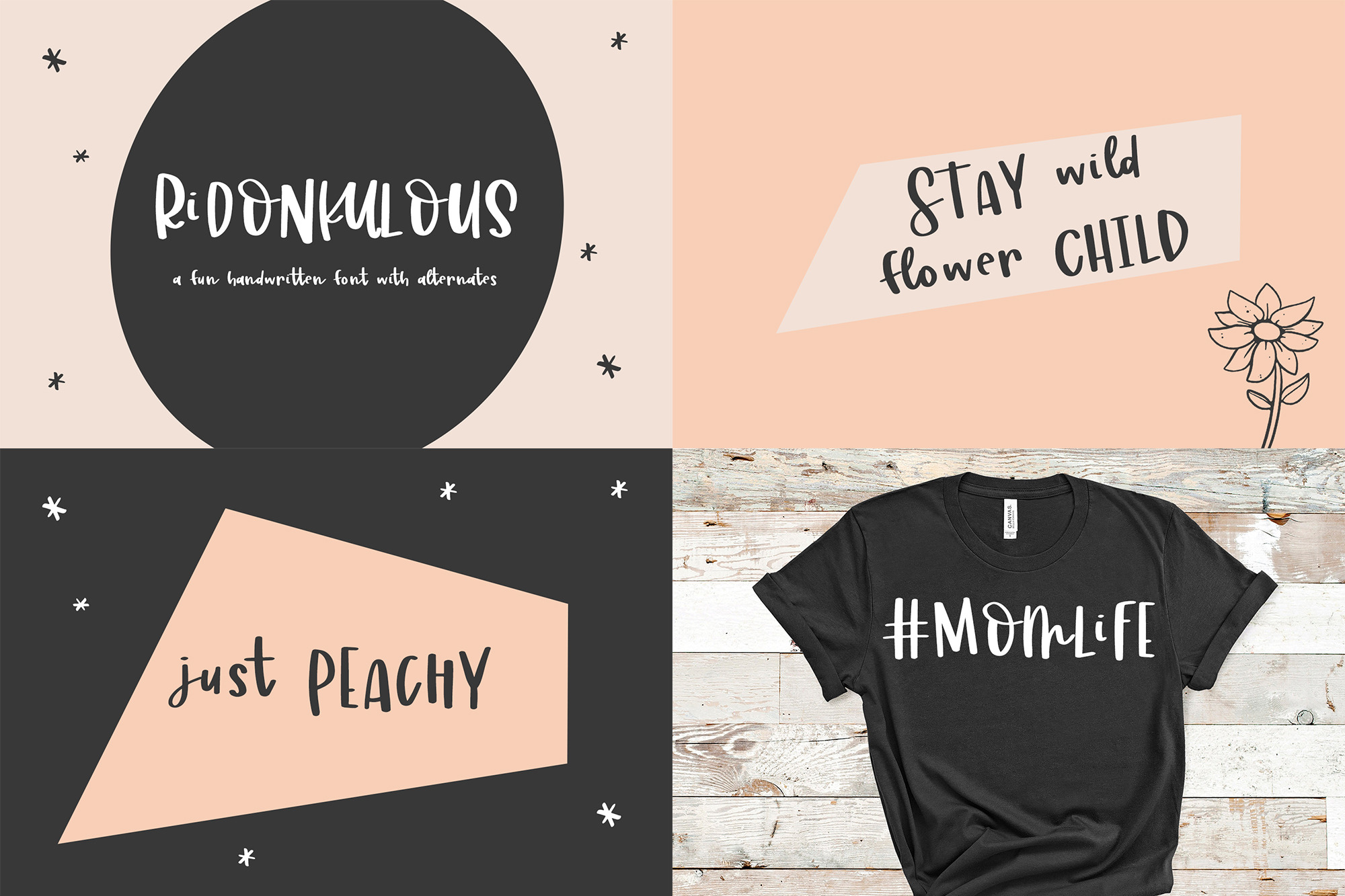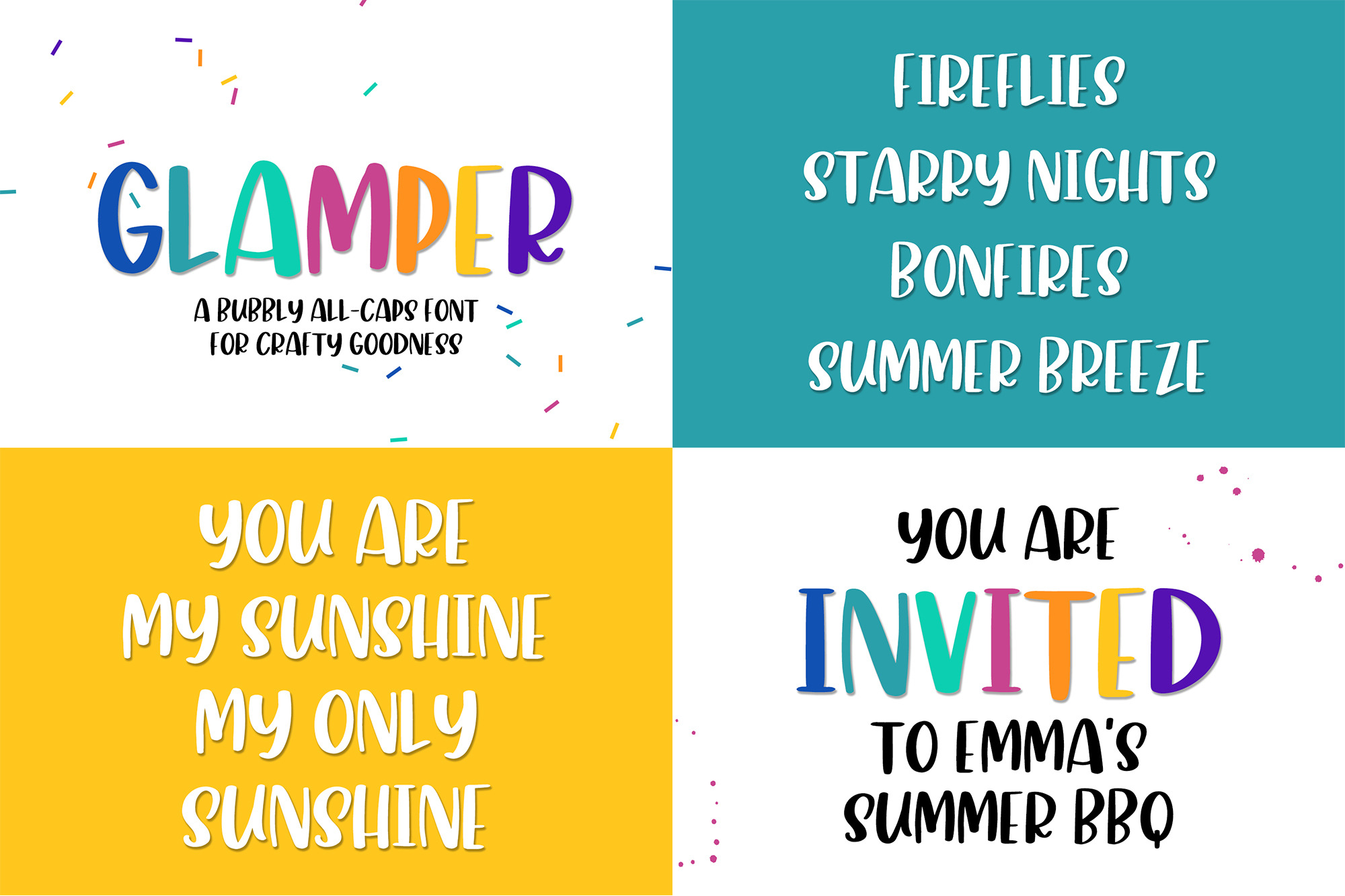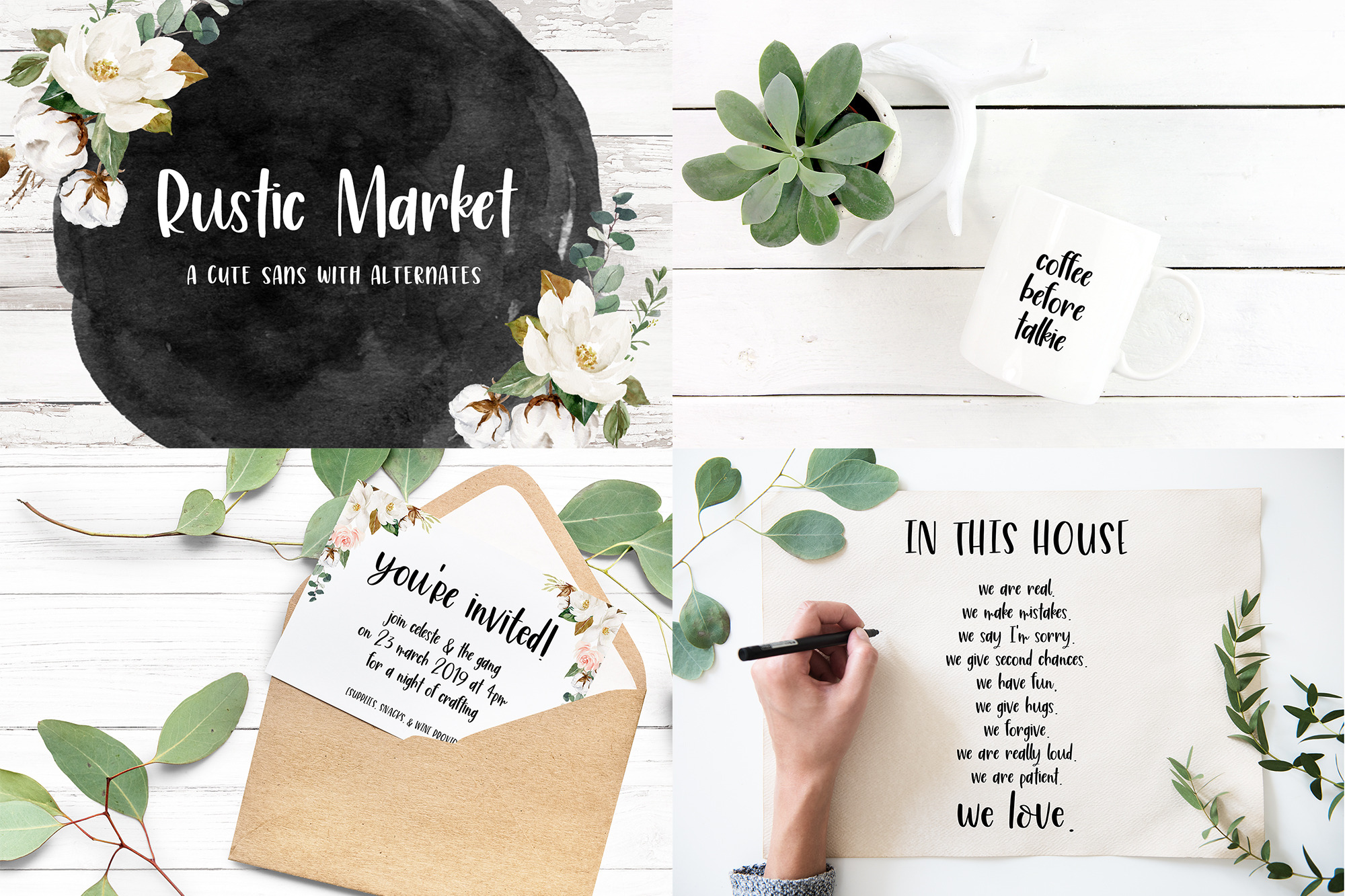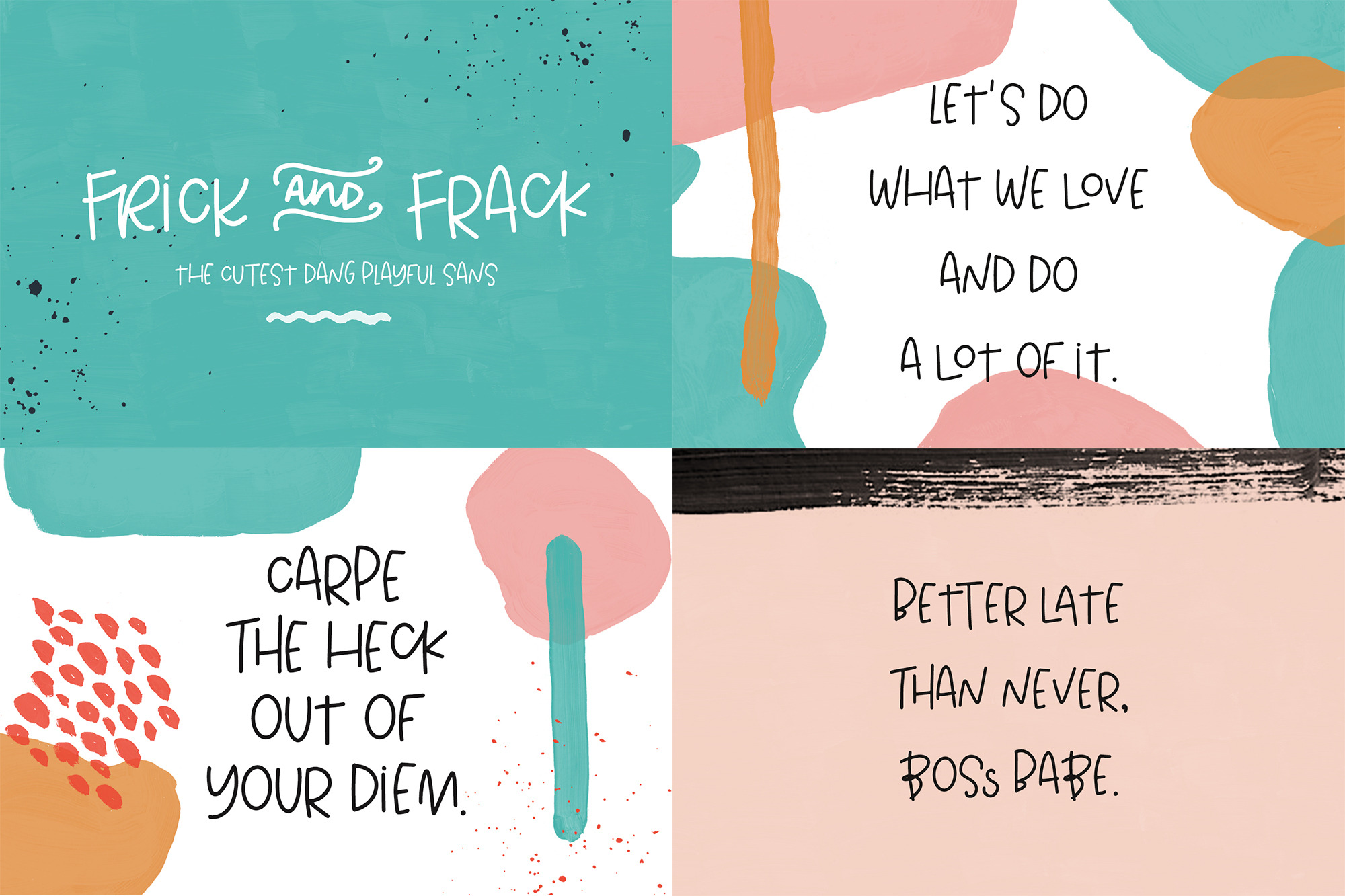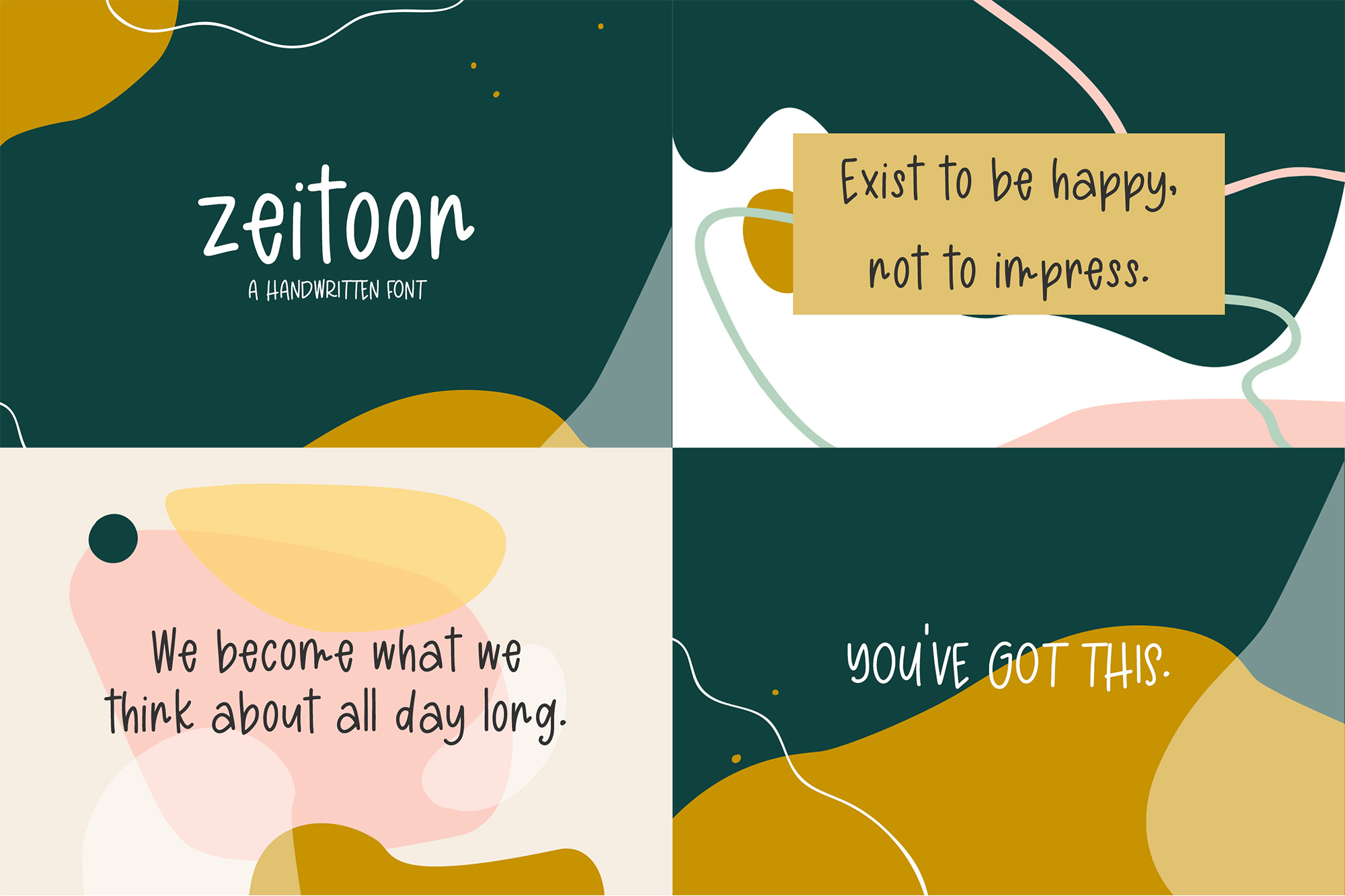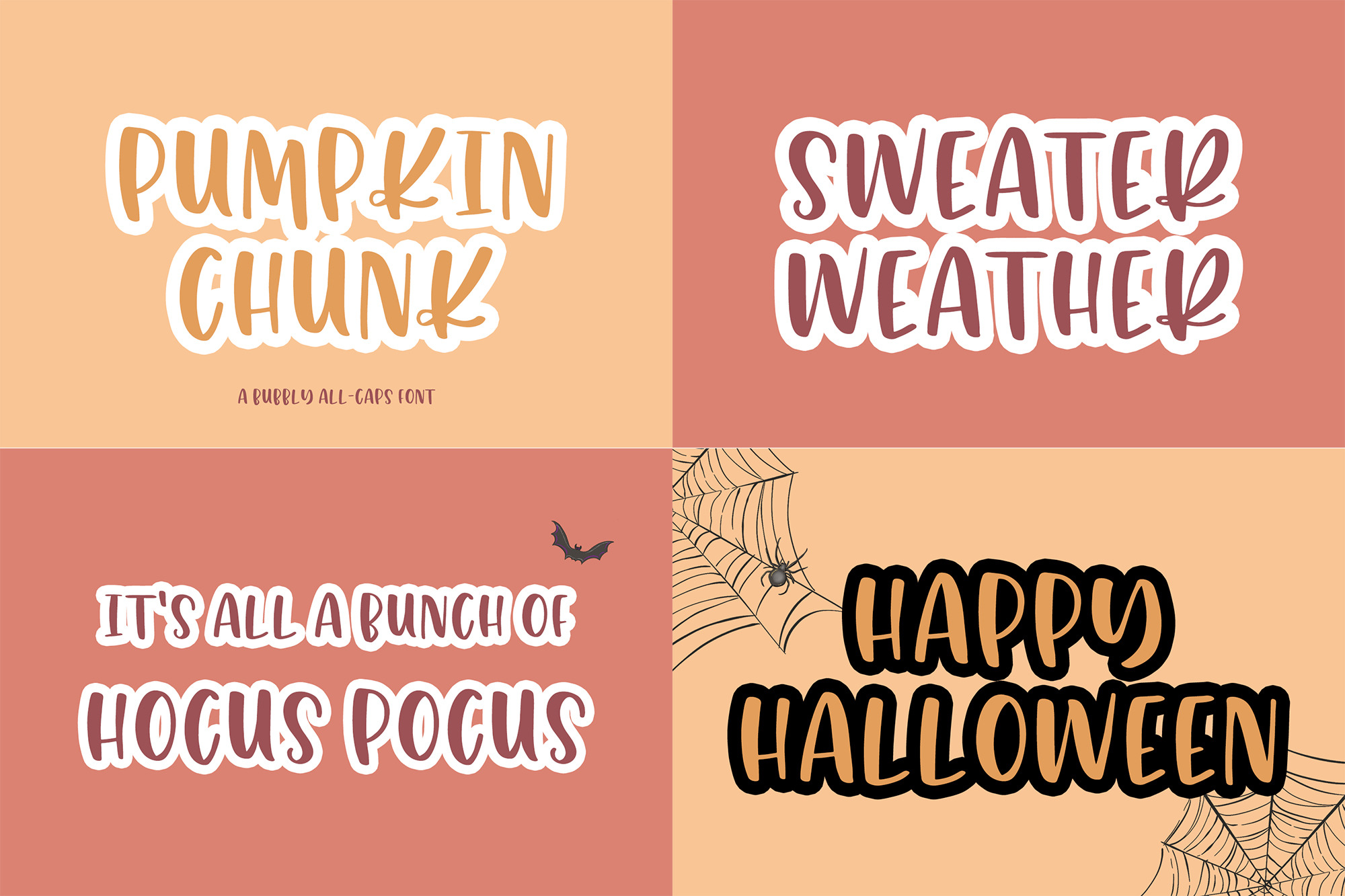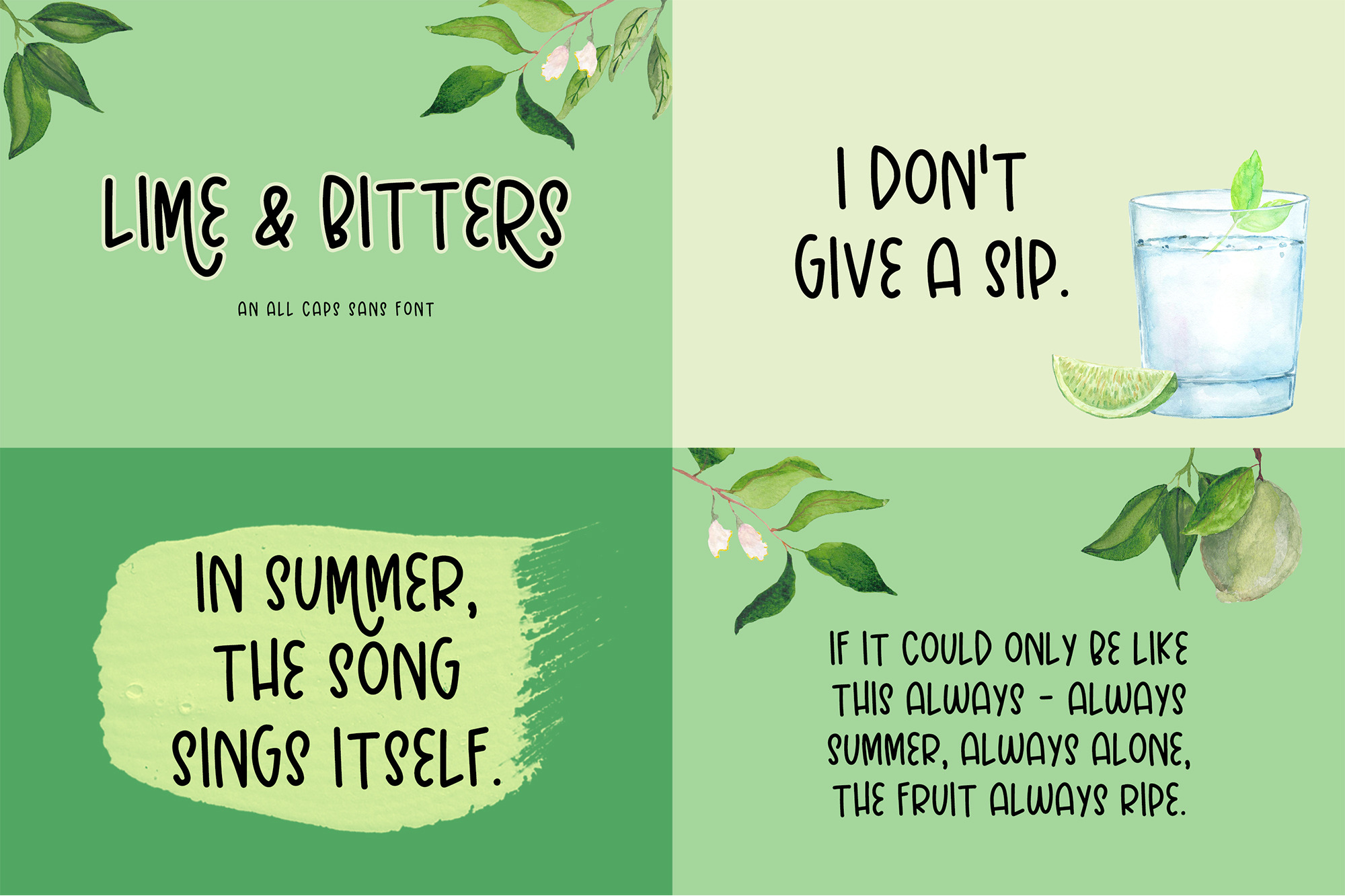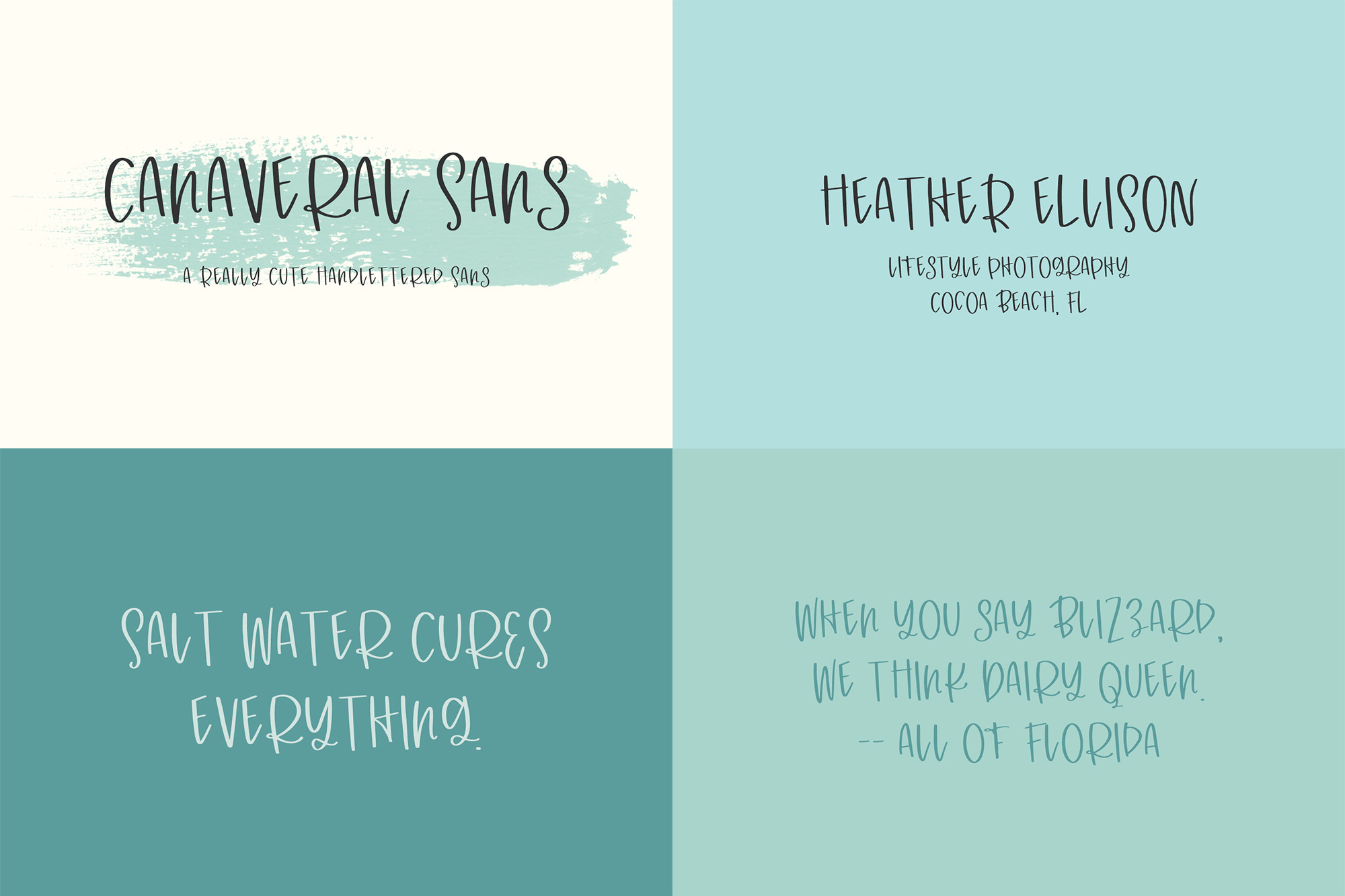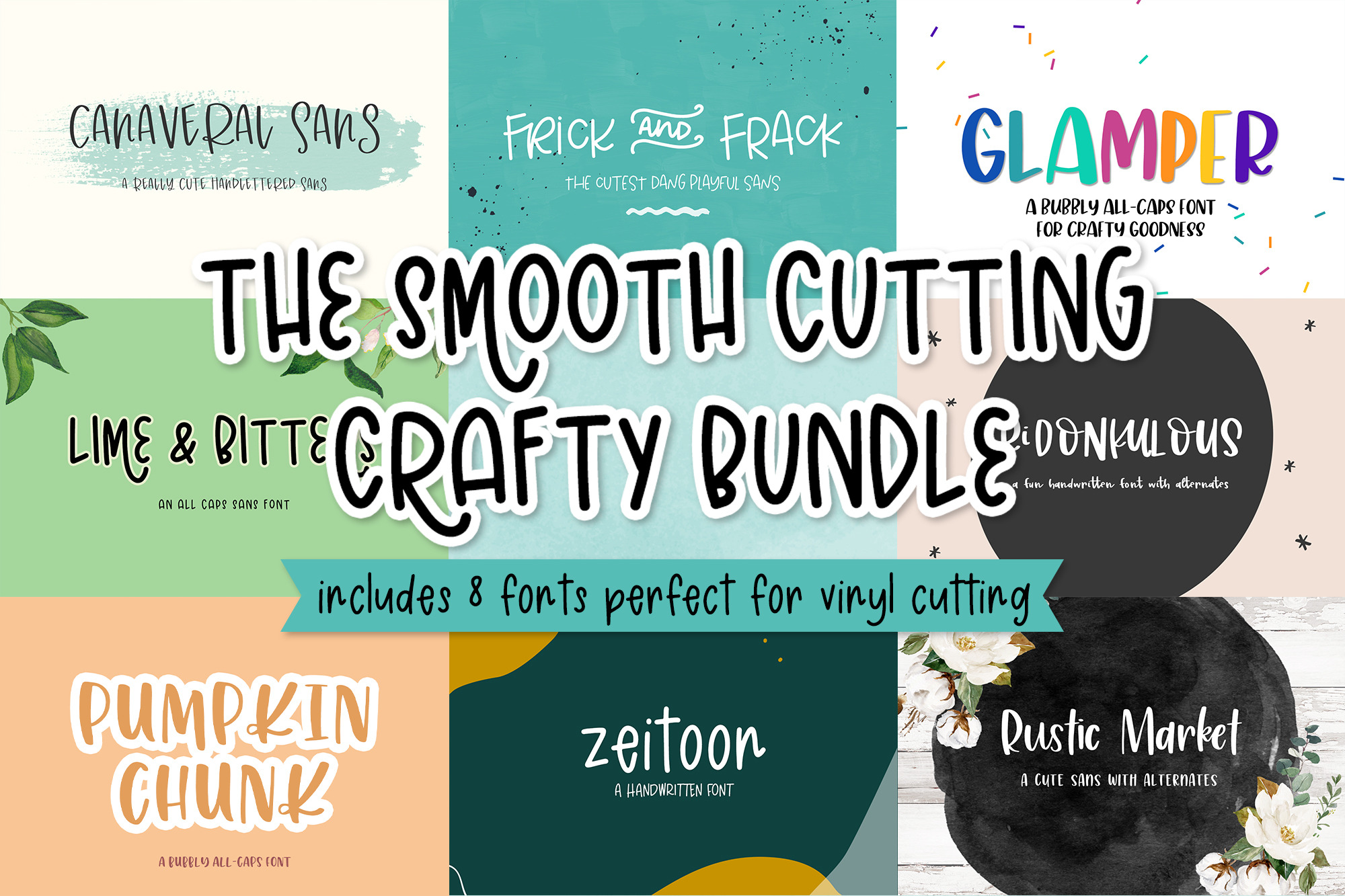
This font bundle is curated especially for crafters! Enjoy 8 fonts super fun fonts with a smooth edge, perfect for vinyl cutting & weeding projects of all types. All handlettered, these fonts will be perfect for logos & branding, website elements, quote graphics, and crafting projects on your Cricut or Silhouette machine! This bundle includes: - Ridonkulous - Pumpkin Chunk - Glamper - Zeitoon - Lime Bitters - Canaveral - Rustic Market - Frick and Frack This bundle is curated for designers and crafters that enjoy making modern & fun projects with a playful, uplifting feel. These fonts are all handlettered to perfection, and easy to install! Font file types provided are .otf, .ttf, and webfont (.eot, .woff, and .woff2) files. All fonts include full character sets, numbers, punctuation, PUA encoding, and Western European Language Support. | The Smooth Crafting Font Bundle | Beck McCormick